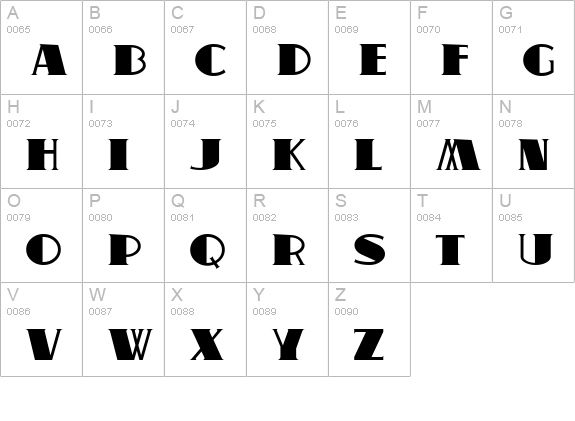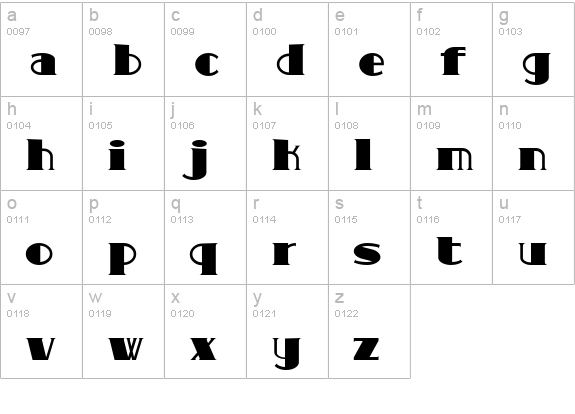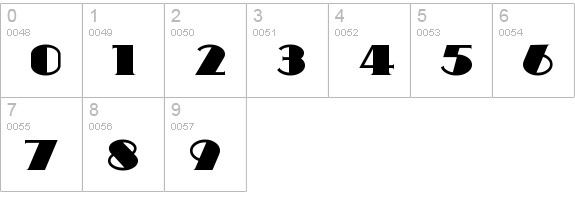
Comic Bold Font Details
Comic Bold is a strong, high-contrast variant in the Comic typeface family \xE2\x80\x94 well suited to headlines, attention-grabbing titles, and strong calls-to-action.
Comic Bold font is a fun and playful typeface that is perfect for adding a touch of whimsy to your designs. With its bold and eye-catching appearance, this font is sure to make a statement. Whether you're working on a poster, comic strip, or any other project that calls for a bold and dynamic font, Comic Bold has got you covered. The best part? Comic Bold font is completely free to download at FontsMarket.com. This means you can add this versatile typeface to your font collection without breaking the bank. So why wait? Download Comic Bold today and let your creativity soar!